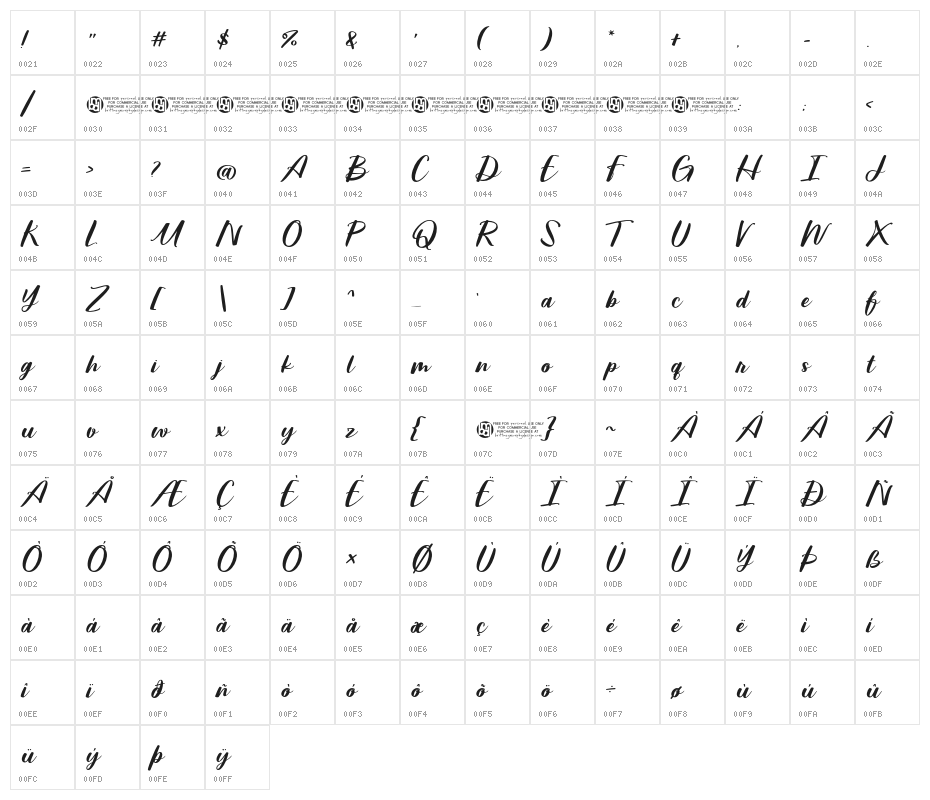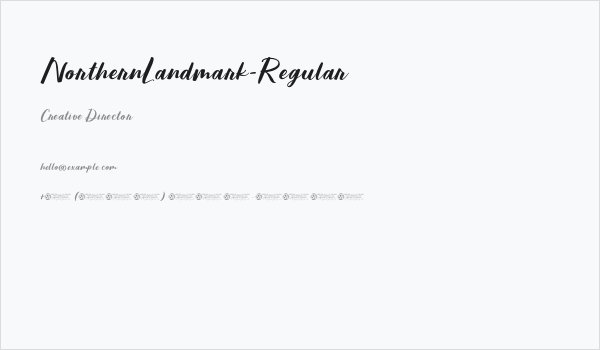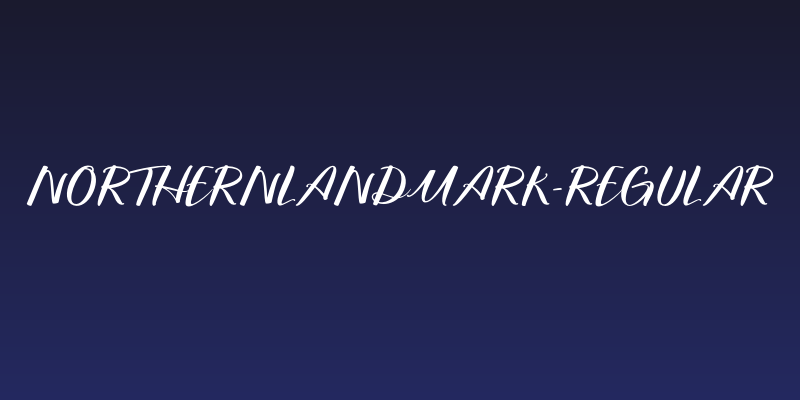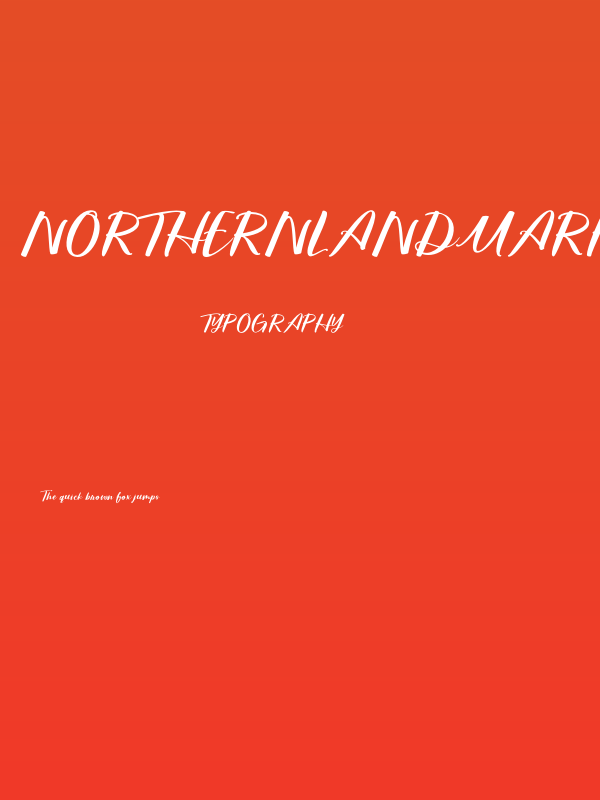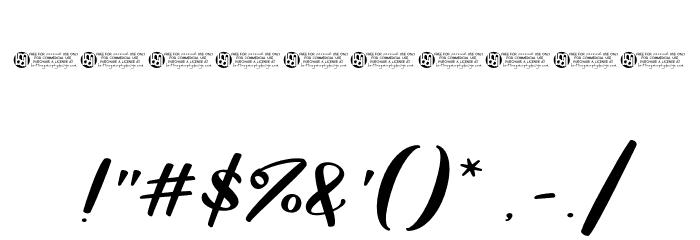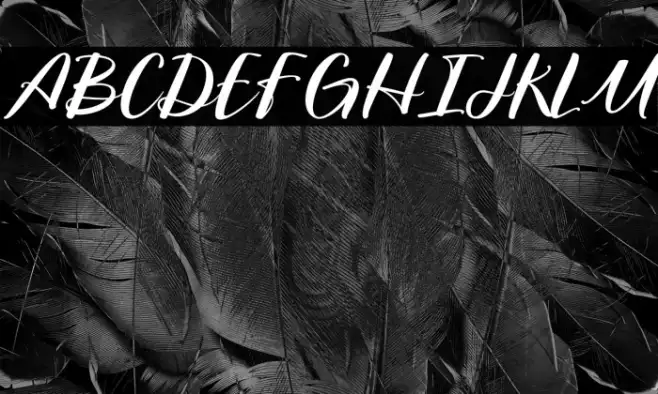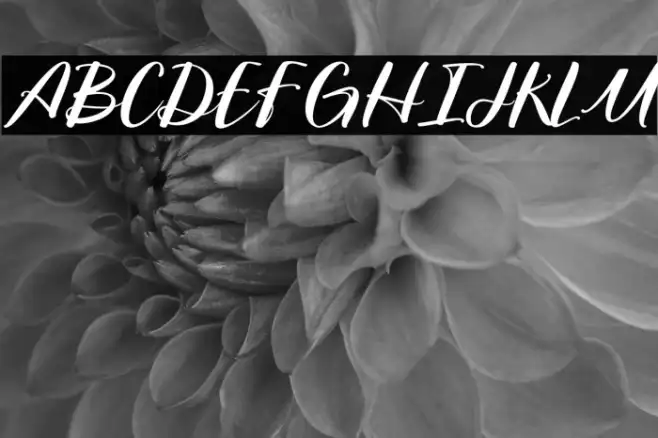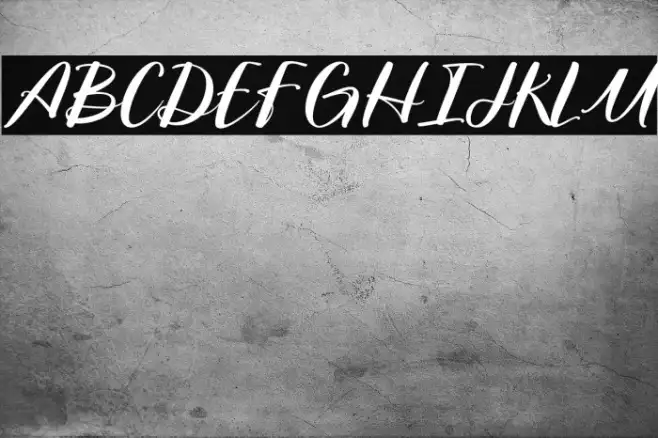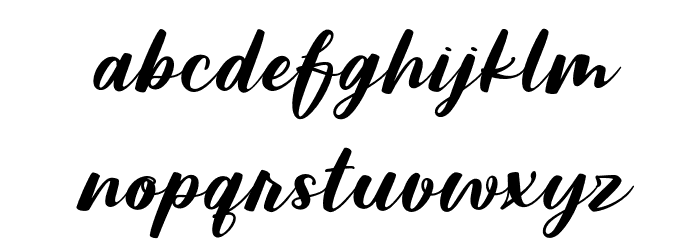
NorthernLandmark-Regular Font
NorthernLandmark-Regular Description
This font exudes a dynamic and elegant script style, characterized by its fluid, cursive strokes and a sense of movement. The uppercase letters are bold and sweeping, with distinctive flourishes that add a touch of sophistication. The lowercase letters maintain a consistent flow, enhancing readability while preserving the artistic flair. The numerals and special characters are crafted with the same attention to detail, ensuring a cohesive look across all elements. This font is perfect for projects that require a personal and stylish touch, such as invitations, branding, and editorial design.
| Proposed Projects | Ideal for invitations, branding, editorial design, and any project needing a stylish, personal touch. |